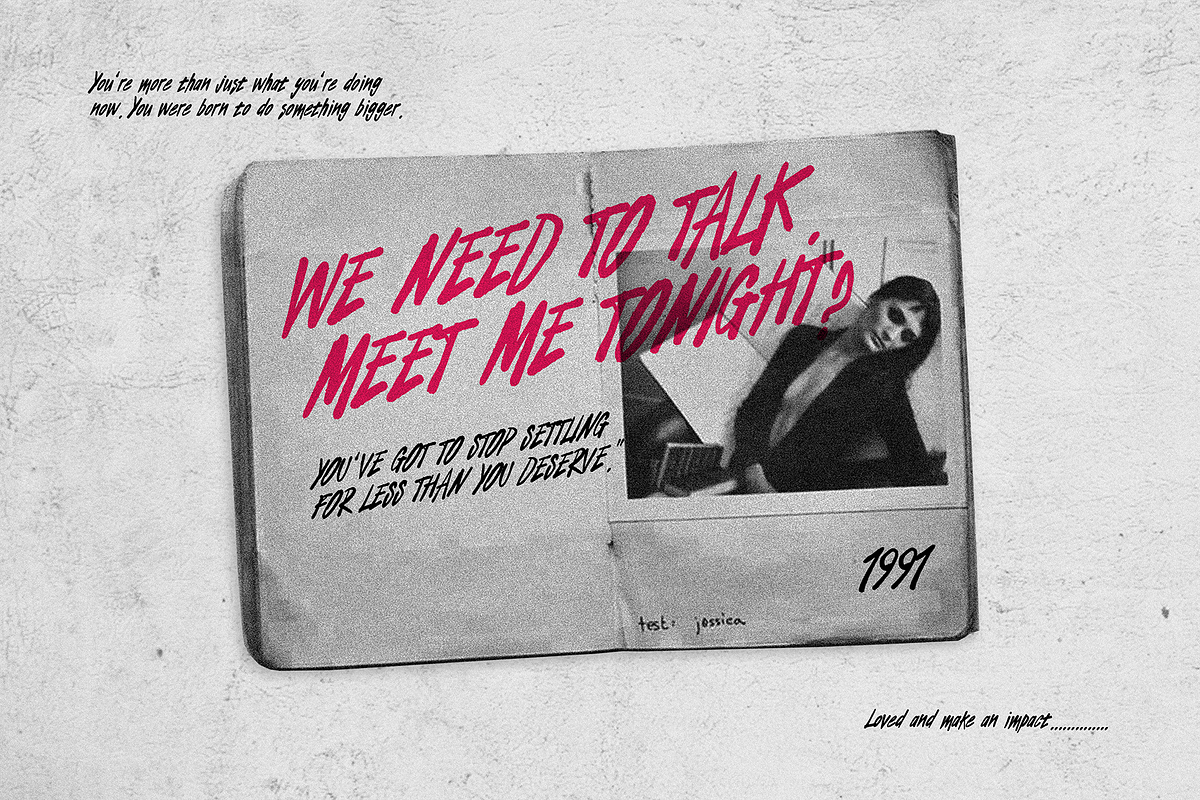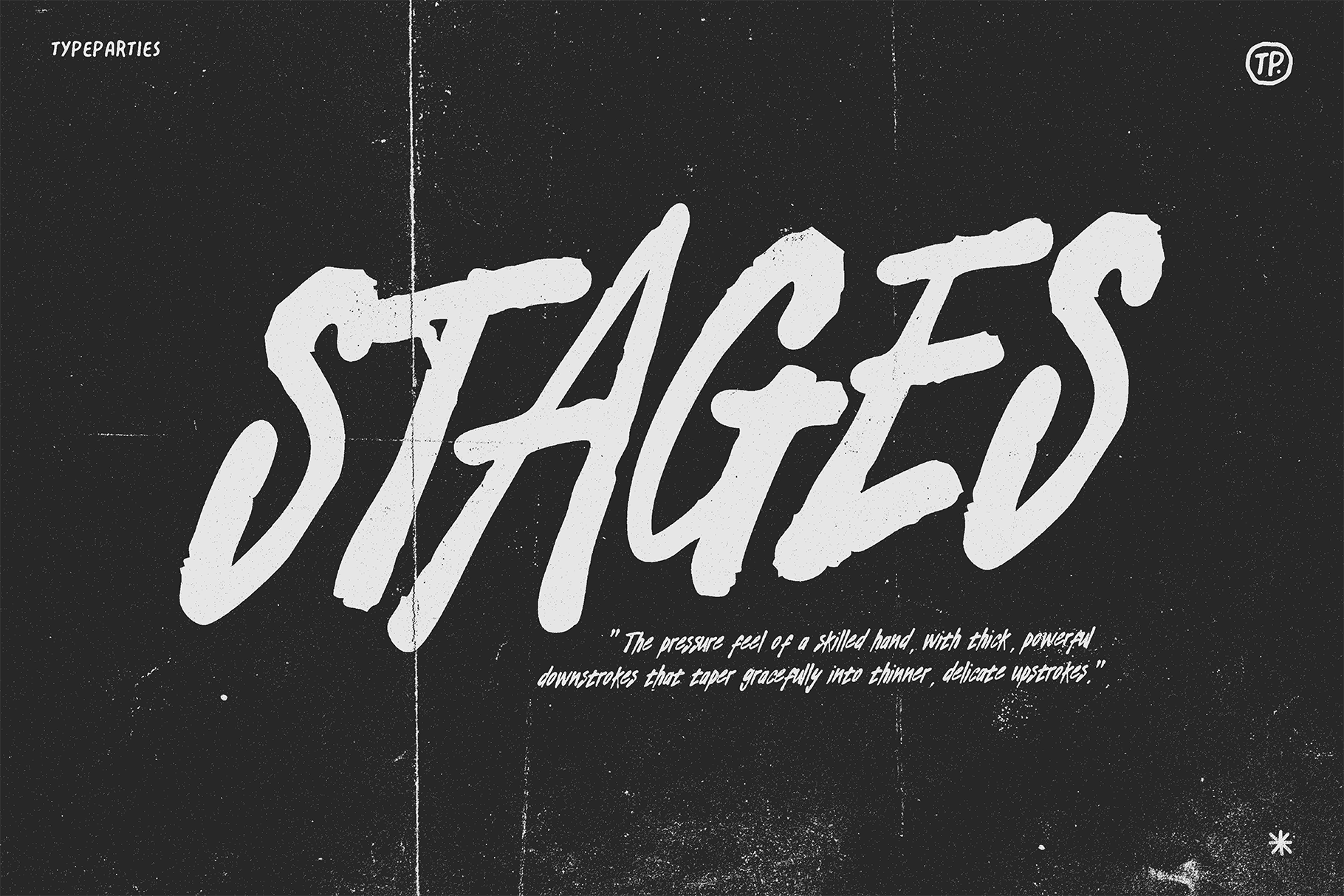
Stages Brush Fonts
Stages Brush Fonts is a font hits like raw energy on paper—bold, slashed, and unapologetically alive. Every letter drips with attitude, carrying the weight of heavy strokes that crash down hard, then snap back into sharp, razor-thin cuts. It feels hand-forged, imperfect in the best way, like a marker dragged with intent across a wall. Built for noise, chaos, and raw expression, this typeface isn’t here to whisper—it’s here to dominate the stage.